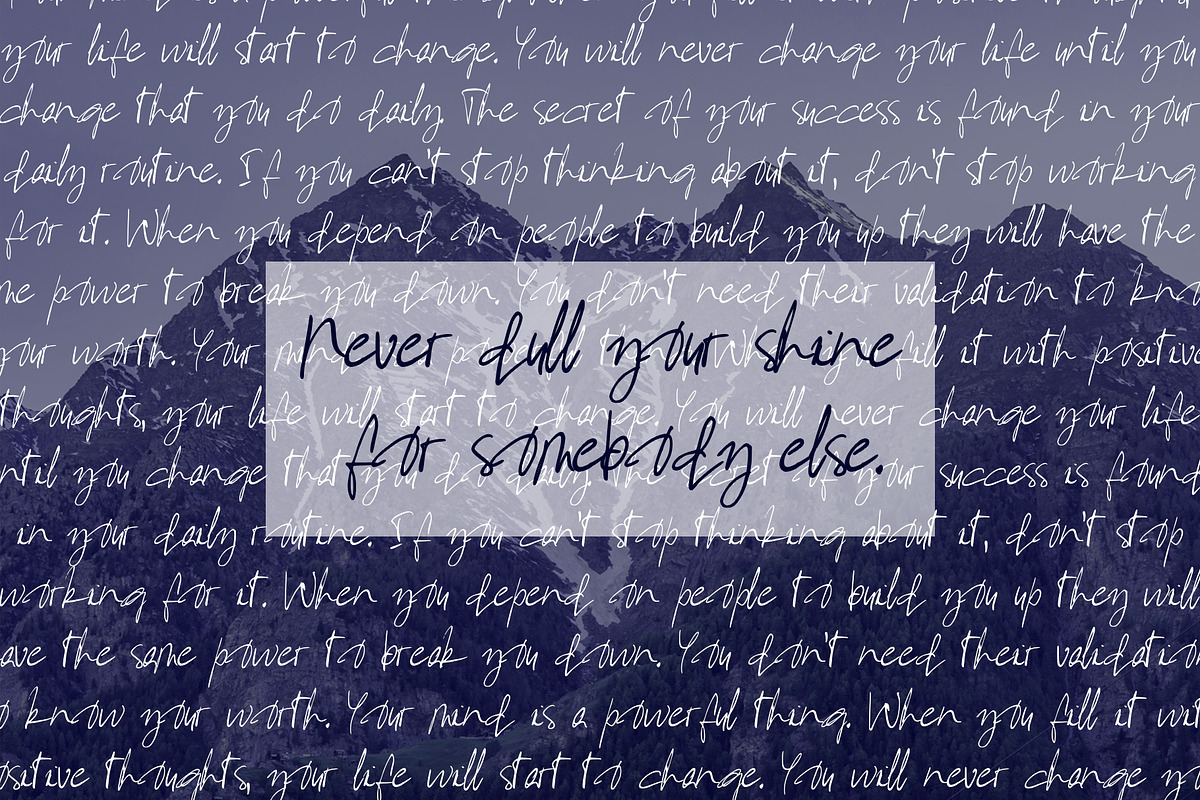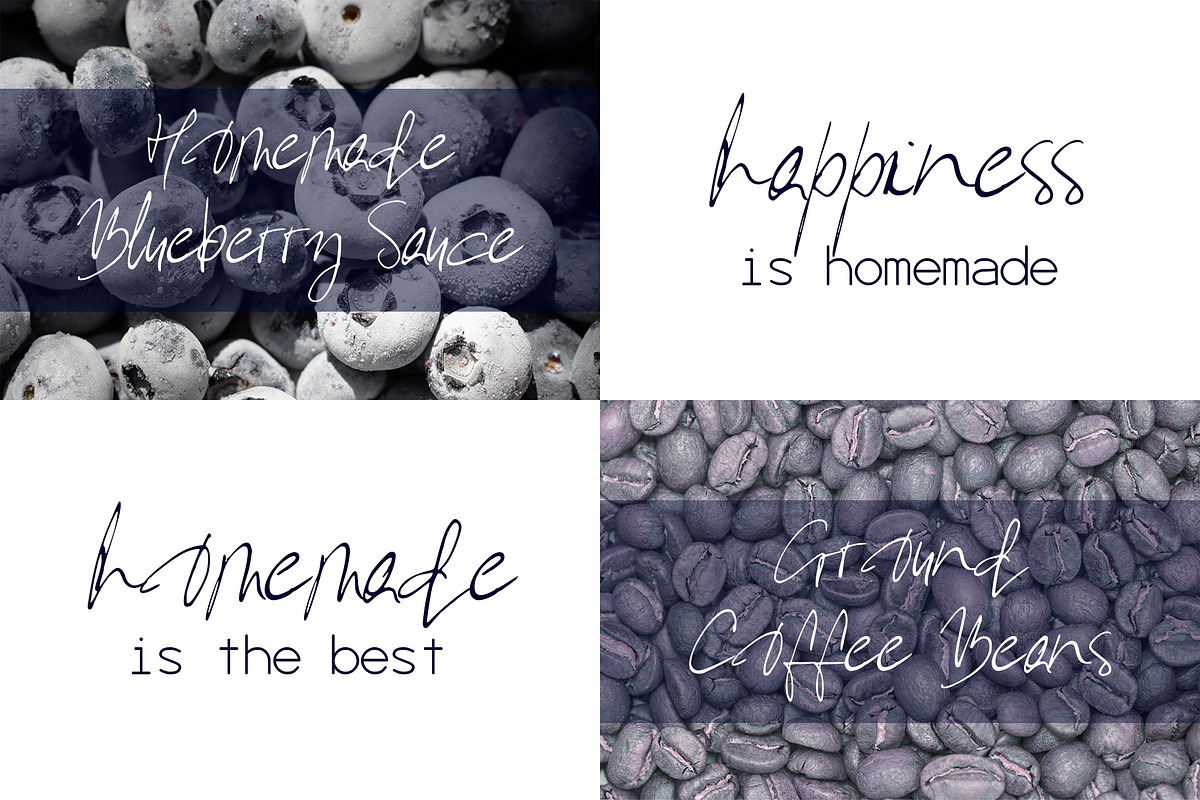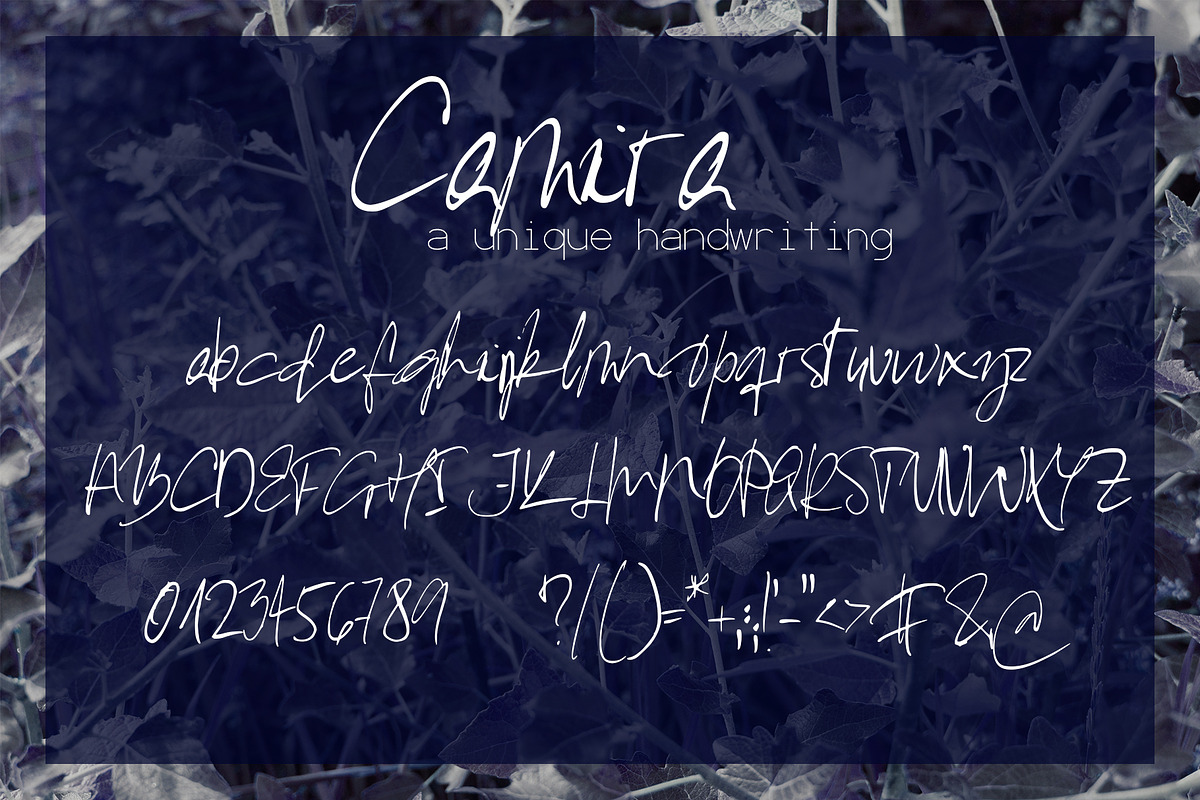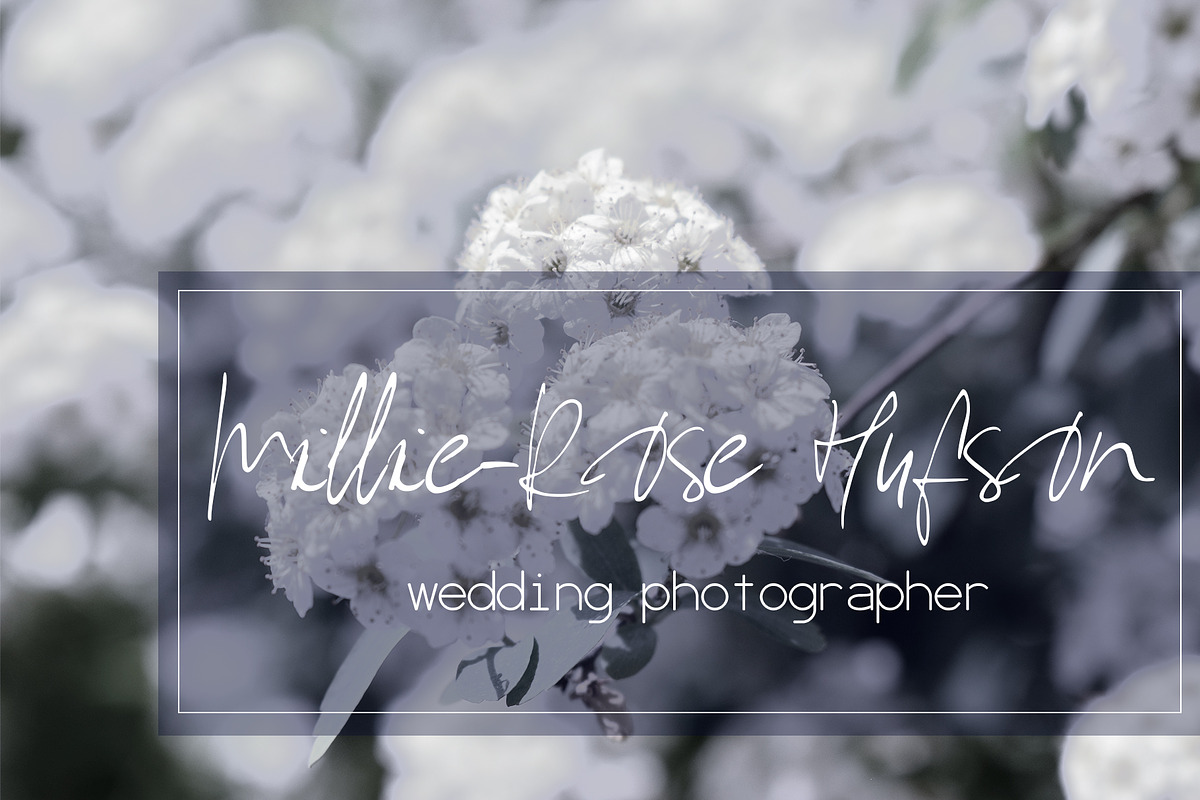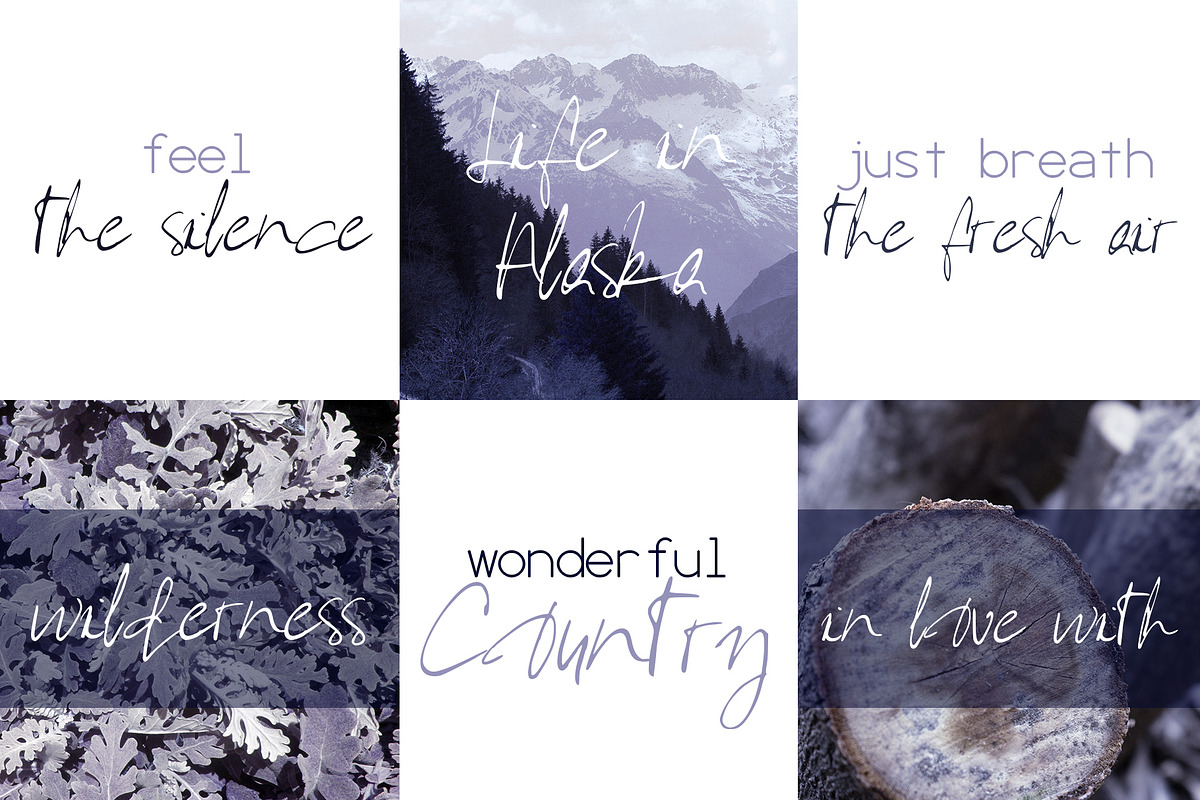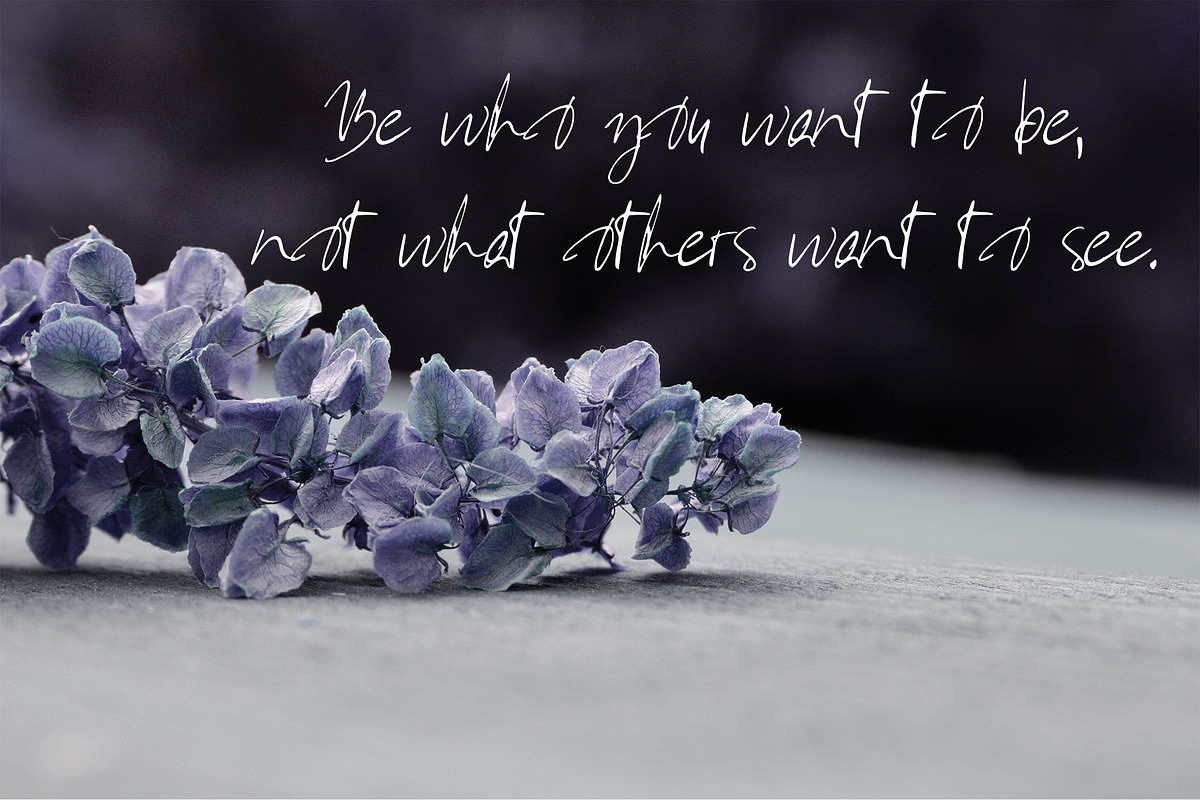
Camira Font
Introducing Camira, a unique handwritten script.💗 Perfect for any graphic and logo designs, wedding and birthday invitations.
- Camira font contains uppercase & lowercase characters, numbers and punctuations.